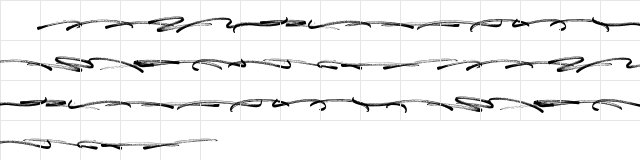
Complete Panterick Swash Regular glyph index. Displaying only characters natively supported by Panterick Swash Regular font.
Panterick Swash flows with the natural rhythm of handwritten lettering, making it ideal for designs that call for warmth and personal expression.
Font Pairing: Combine Panterick Swash with a simple geometric sans for maximum contrast - the tension between flowing curves and clean structure is a classic typographic pairing.
Pro Tip: Use Panterick Swash for short runs of text - names, titles, or taglines. Extended body copy in script faces tires the eye quickly.